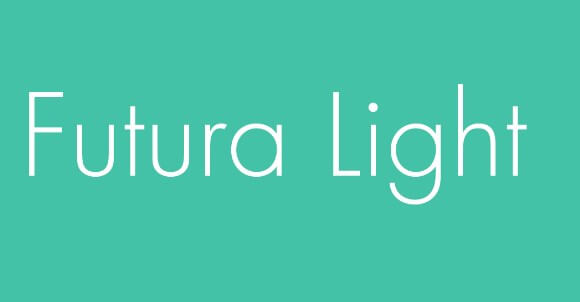
Futura Light Font
Futura Light Font is a stylish sans serif typeface with elongated bureaucracy, smooth curves, and exciting bars and tails, plus other feature factors.